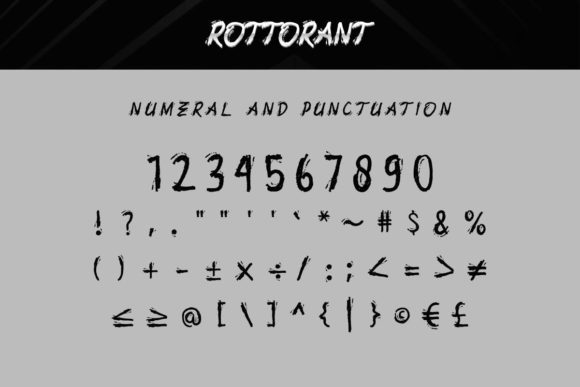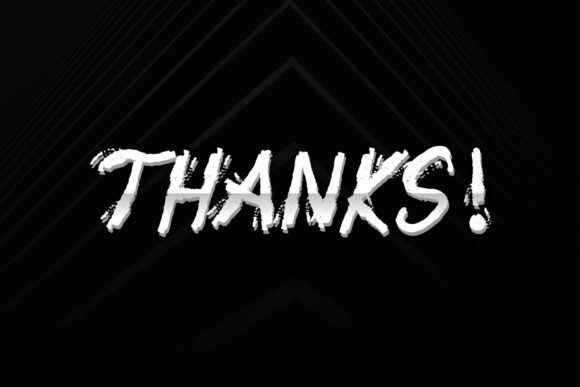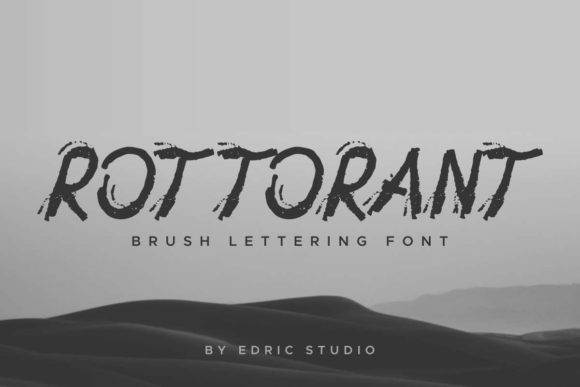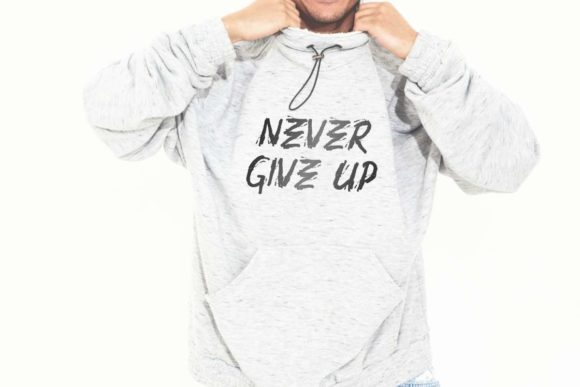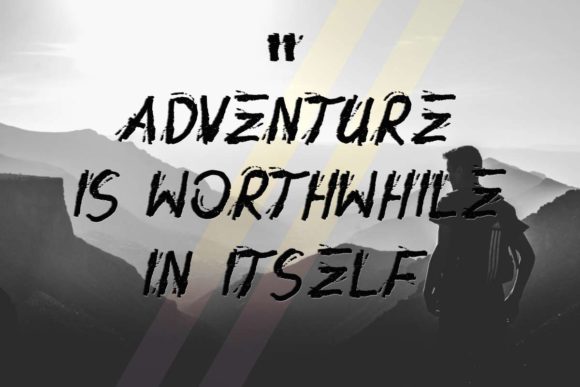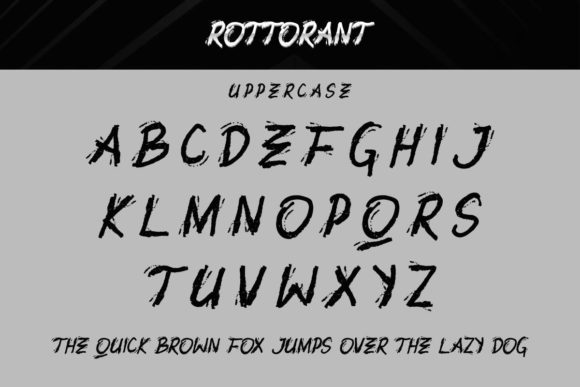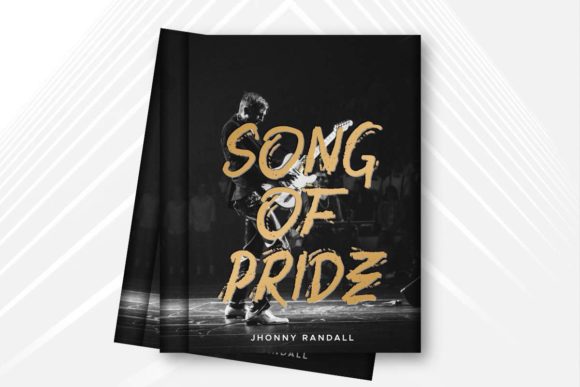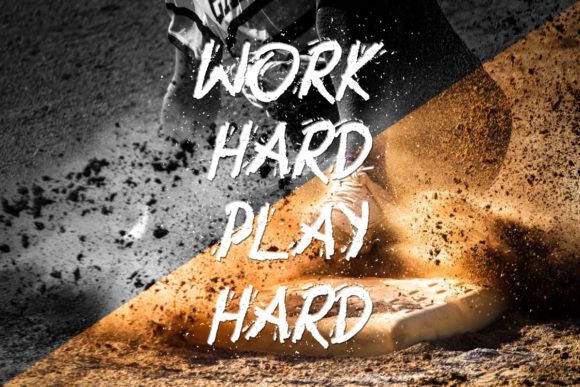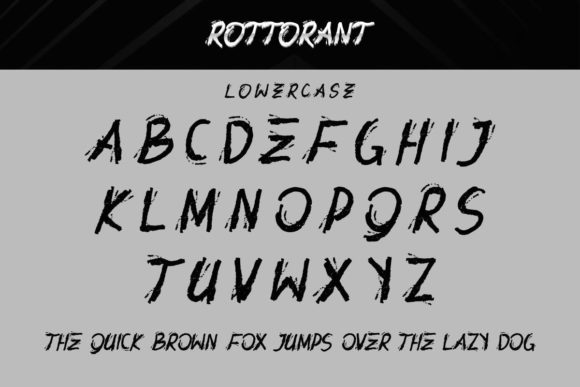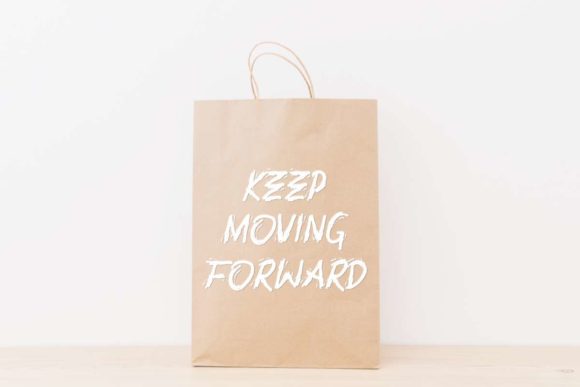
Rottorant Font
About Rottorant Font
Rottorant is a modern and rough handwritten font with an incredibly mysterious feel. Whether you’re looking for fonts for Instagram or calligraphy scripts for DIY projects, this font will turn any creative idea into a true piece of art!